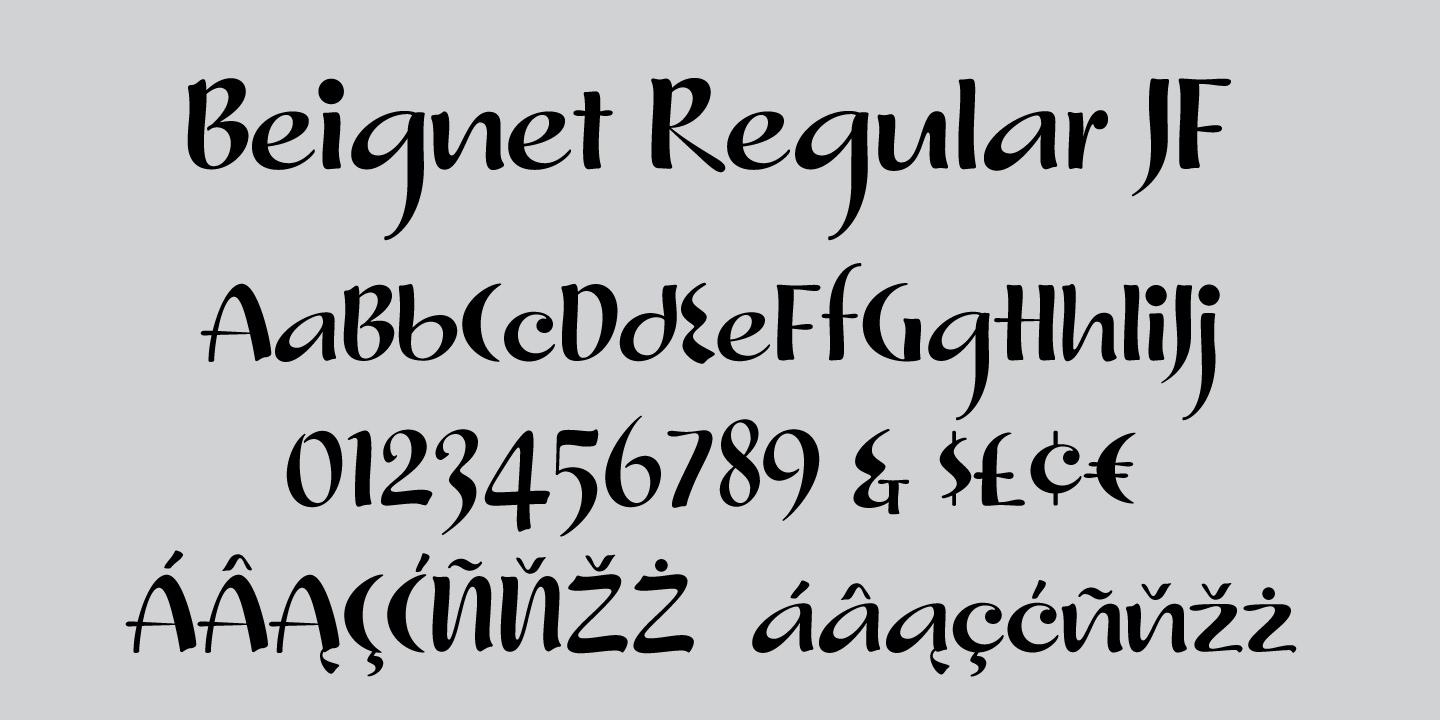
Beignet JF Font is perfect for French bakery branding, artisan cafe signage, gourmet food packaging, charming restaurant menus, sweet confectionery labels, cozy cookbook covers, delightful greeting cards, warm hospitality design, romantic bistro branding, and inviting culinary publications.
What makes Beignet JF Font exciting is its deliciously charming character and sweet elegance that captures the warmth and comfort of French patisserie culture. This delightful typeface features soft, rounded letterforms with gentle curves that evoke the feeling of freshly baked pastries and cozy neighborhood cafes. The font's friendly warmth and approachable character make it perfect for brands seeking to convey comfort, quality, and authentic culinary craftsmanship in the food and hospitality industry.
The Beignet JF Font family includes sweet variations: Regular, Bold, Light, Italic, Display, and Ornamental versions. Each style maintains the core charming aesthetic while offering different levels of sweetness and decorative appeal. The complete family provides designers with comprehensive tools for creating inviting, appetite-appealing visual communications that make audiences feel welcomed and satisfied.
When your project needs culinary charm and sweet sophistication, Beignet JF Font Free Download is the perfect recipe. This delightful typeface transforms ordinary food communications into appetizing visual treats that make mouths water and hearts warm. Its versatile nature makes it ideal for both intimate bakery applications and large-scale food industry branding. Download Beignet JF Font today and add delicious charm to your designs with this remarkable typeface that perfectly captures French culinary elegance and comfort.